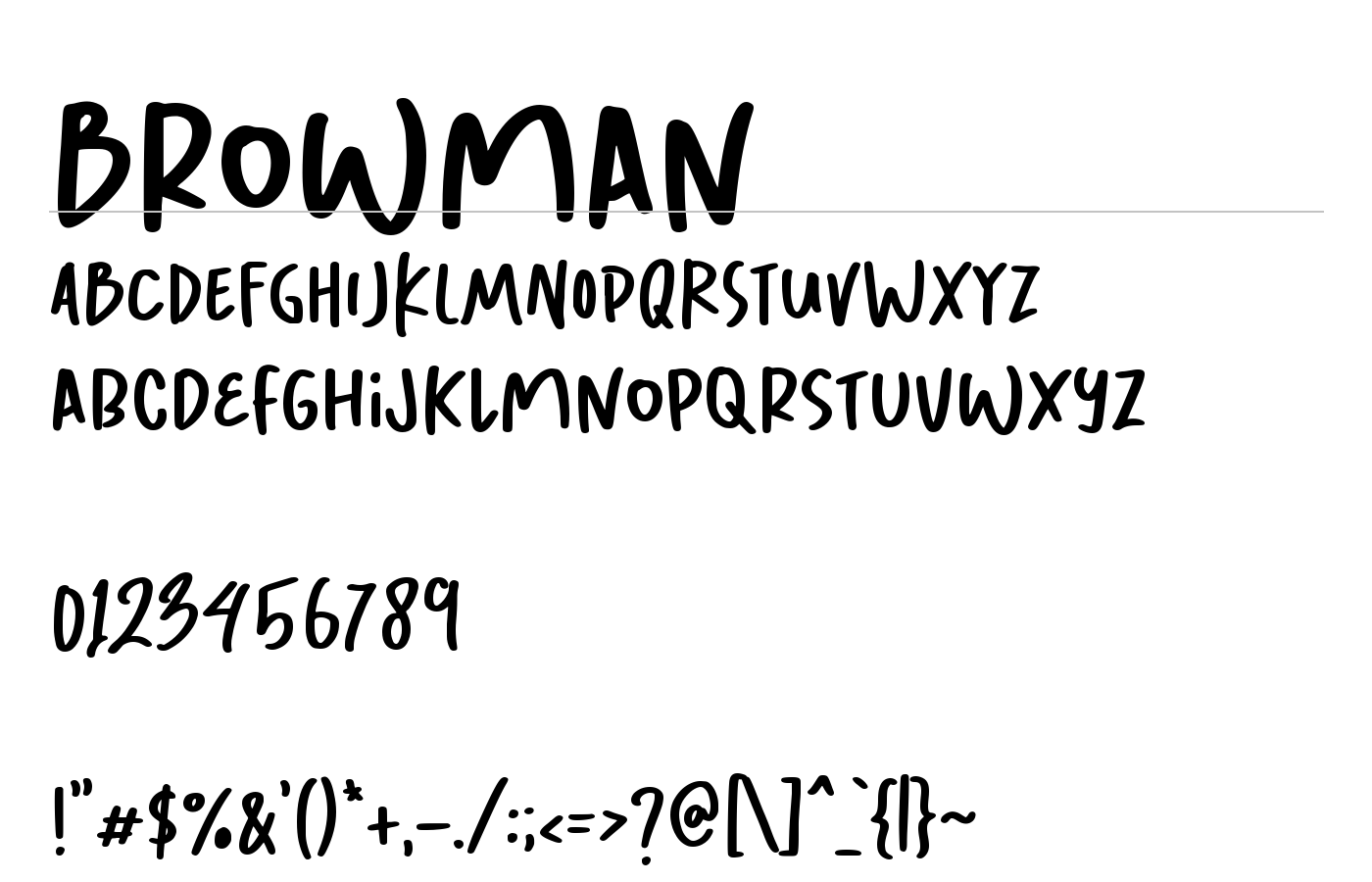
Browman is a playful, hand-drawn sans serif font with a casual, handwritten feel. Its irregular strokes and lively shapes make it great for adding a friendly, approachable touch to creative projects, packaging, and informal branding. This font works best in headlines, posters, and designs seeking a warm, personal vibe.
Browman Font
About Browman Font